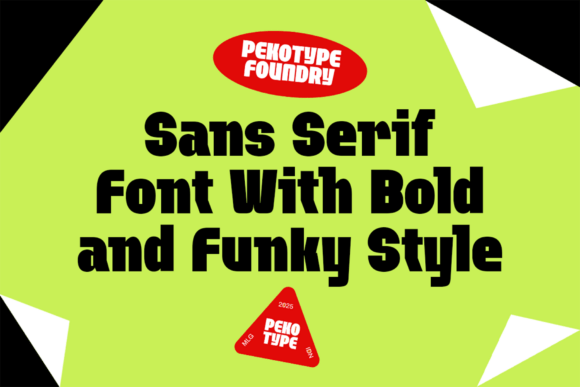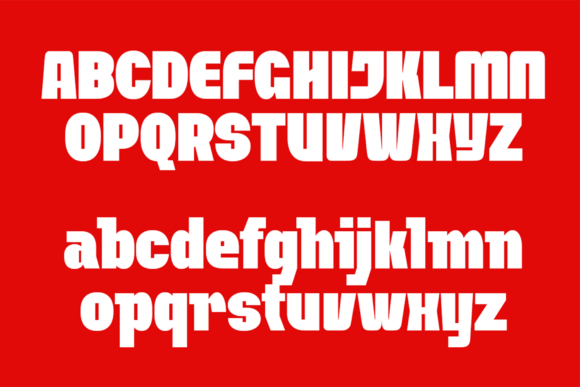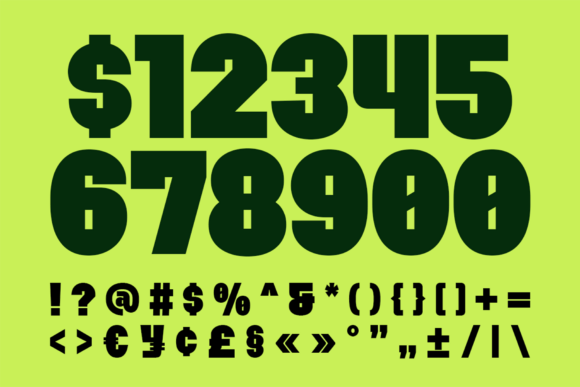
Introduction to Kitle Font
Have you ever stared at a blank canvas, waiting for the perfect font to spark your creative idea? That’s exactly what happened to me last week when I stumbled upon the Kitle Font. Its bold sans serif design and quirky style instantly captured my attention, and I knew I had to dive deeper. With its thick letterforms, smooth edges, and playful personality, Kitle Font is the perfect design resource for anyone looking to add a modern and youthful vibe to their creative project.
As a designer, you’re always on the lookout for high-quality fonts that can elevate your work. And let’s be honest, a free download of a great font is always a welcome addition to your design arsenal. With Kitle Font, you’ll get all the flexibility you need to create stunning designs with a transparent background, perfect for logos, posters, and social media graphics.
Key Features of Kitle Font
- High-quality design resource with a unique, modern aesthetic, ideal for creative projects.
- Features a transparent background, allowing for seamless integration with various design elements.
- Perfect for designers, artists, and creatives working on a variety of projects, from logos and branding to graphics and web design.
Honest Review: Kitle Font
I recently came across the Kitle Font and was excited to dive in and see what it had to offer. As a designer, I’m always on the lookout for high-quality design resources to enhance my creative projects. The Kitle Font definitely delivers in this regard.
What works well with the Kitle Font is its modern and sleek design, making it perfect for a wide range of creative projects. The font is available for free download, which is a huge plus. Additionally, the font has a transparent background, allowing for seamless integration with any design element.
- ✨ Modern and sleek design
- ✨ High-quality font
- ✨ Transparent background
However, there are a few limitations to consider. The font may not be suitable for all types of projects, particularly those requiring a more traditional or classic look. Additionally, the font may not be as versatile as some other design resources.
- ⚠️ May not be suitable for traditional or classic projects
- ⚠️ Limited versatility
Overall, I’m impressed with the Kitle Font and would definitely recommend it as a design resource for creative projects. While it may have some limitations, its high-quality design and free download make it a valuable addition to any designer’s toolkit.
Tips for Getting the Most Out of Kitle Font
To maximize the use of Kitle Font, use it on a transparent background to create a striking design. This font is perfect for creative projects that require a high-quality, unique look.
Kitle Font is ideal for:
- Branding and logos
- Infographics and data visualizations
- Editorials and blog posts
- Marketing materials and social media graphics
With its high-quality design and versatility, Kitle Font is a valuable design resource for any creative project.